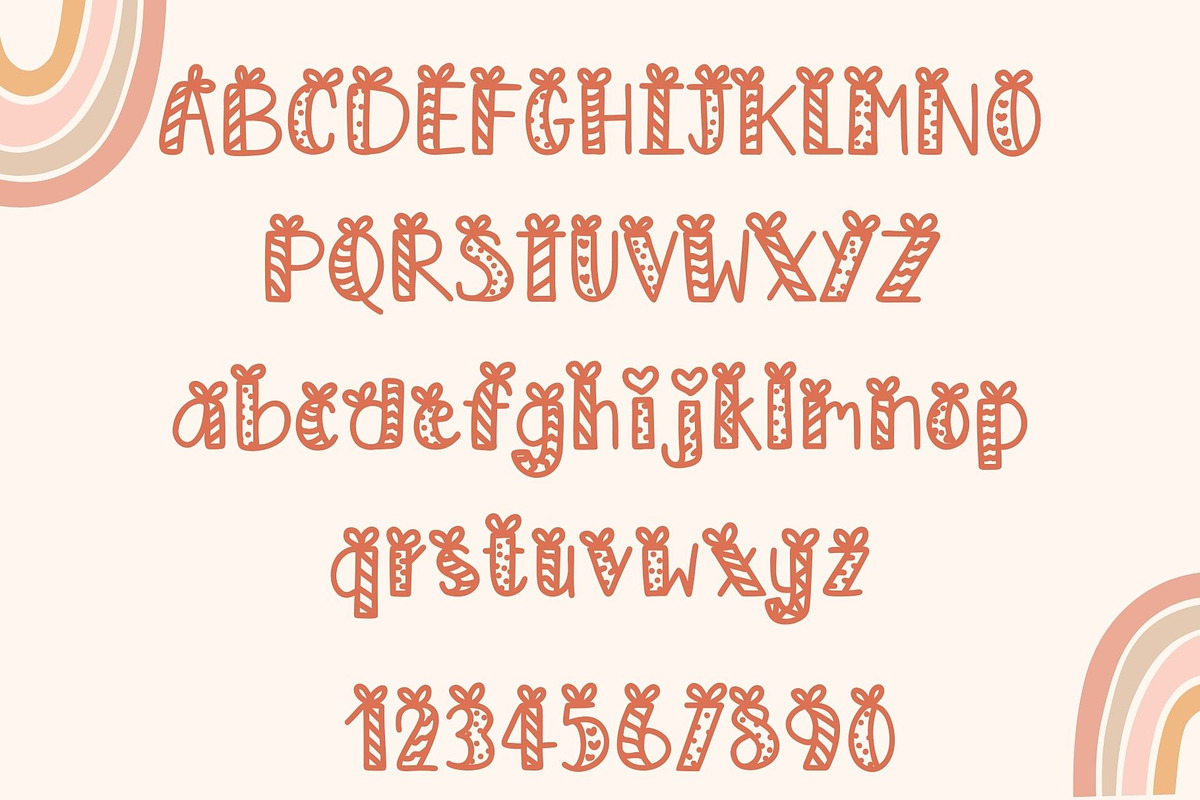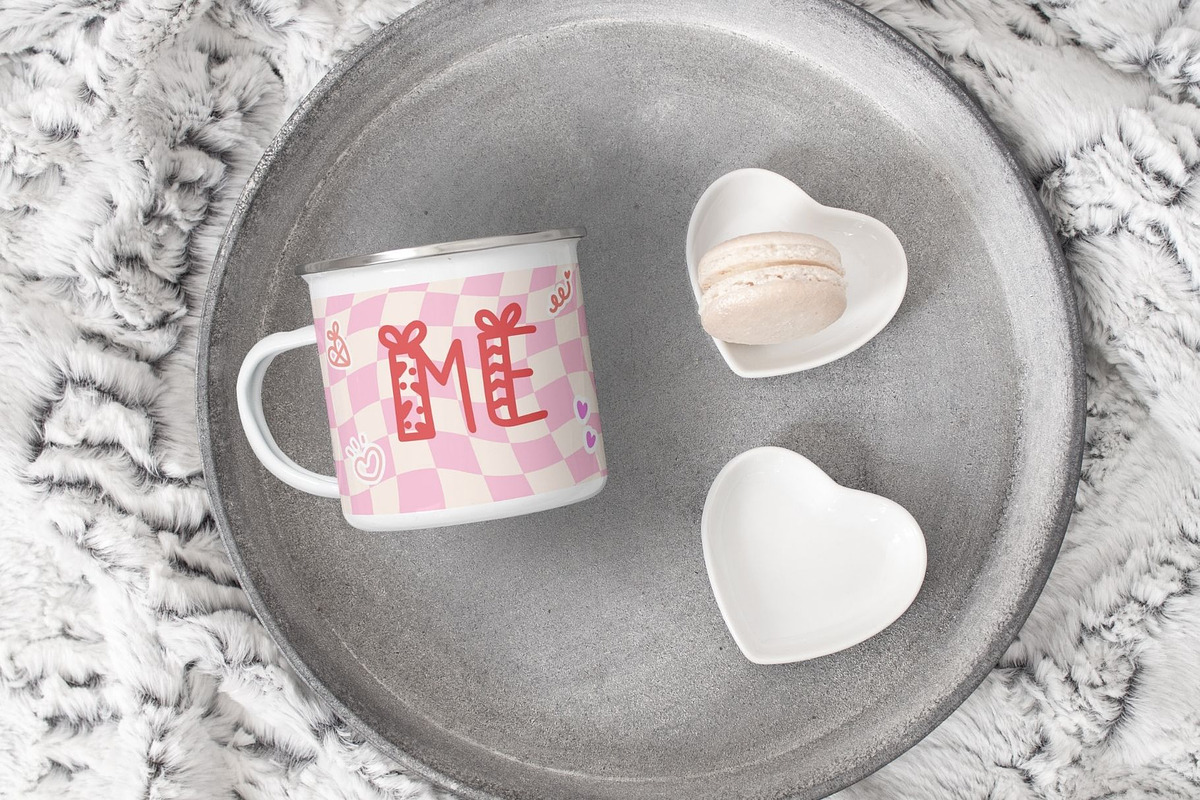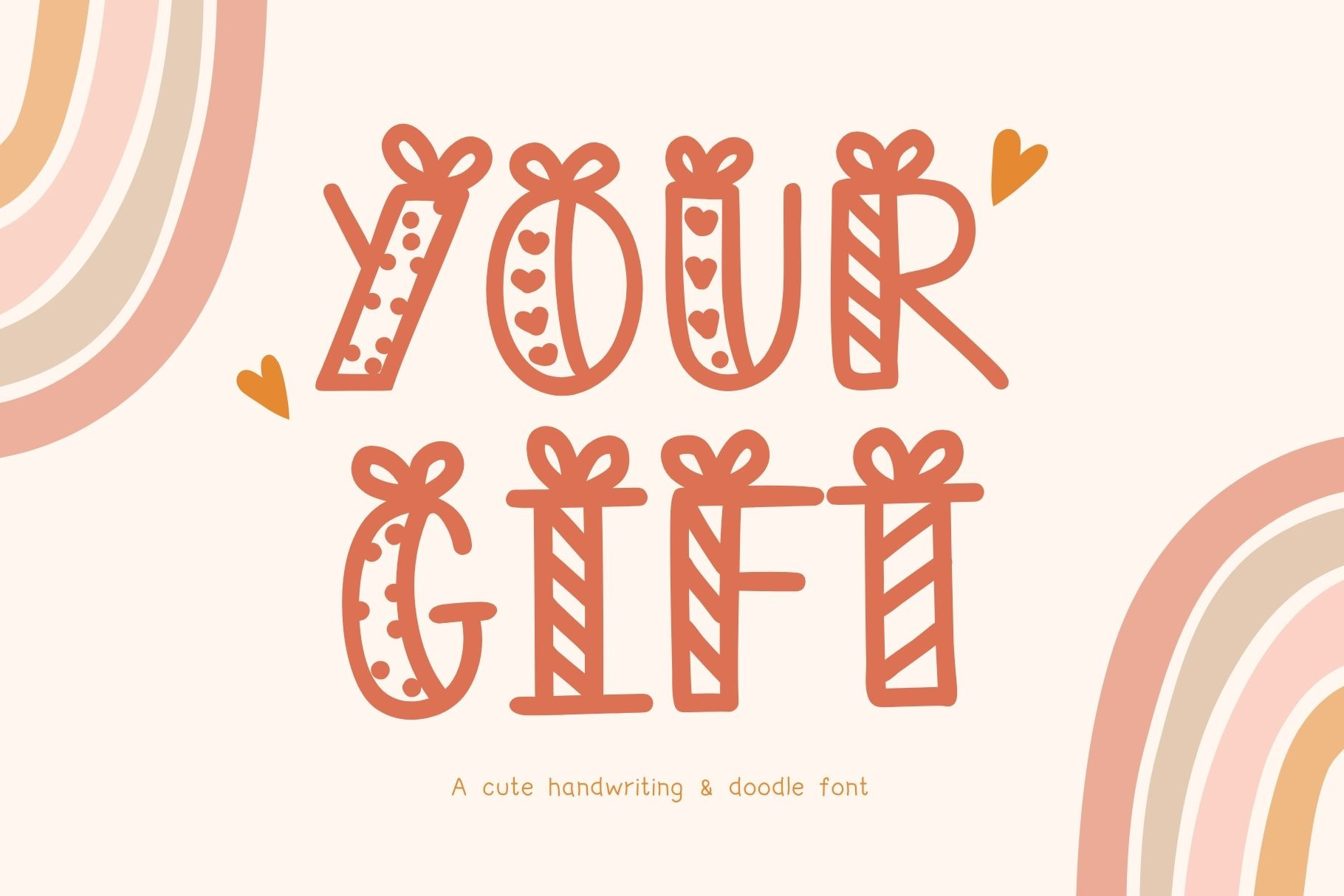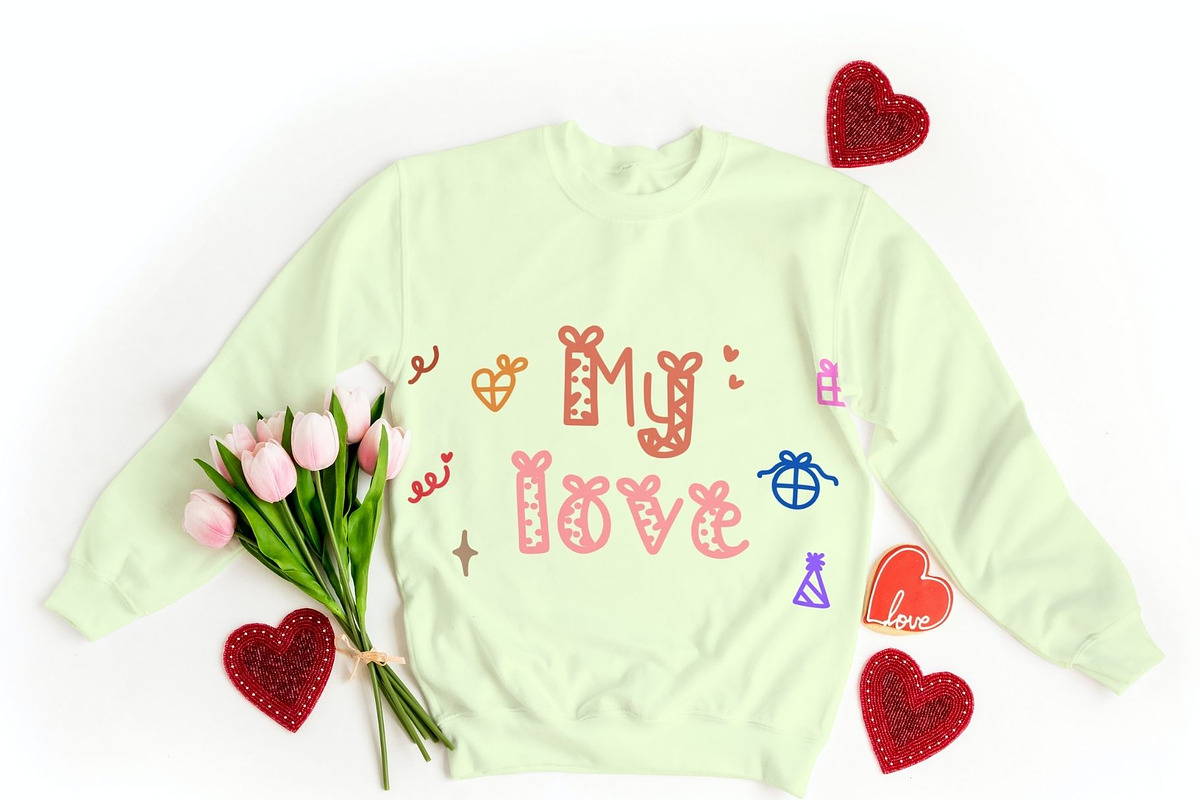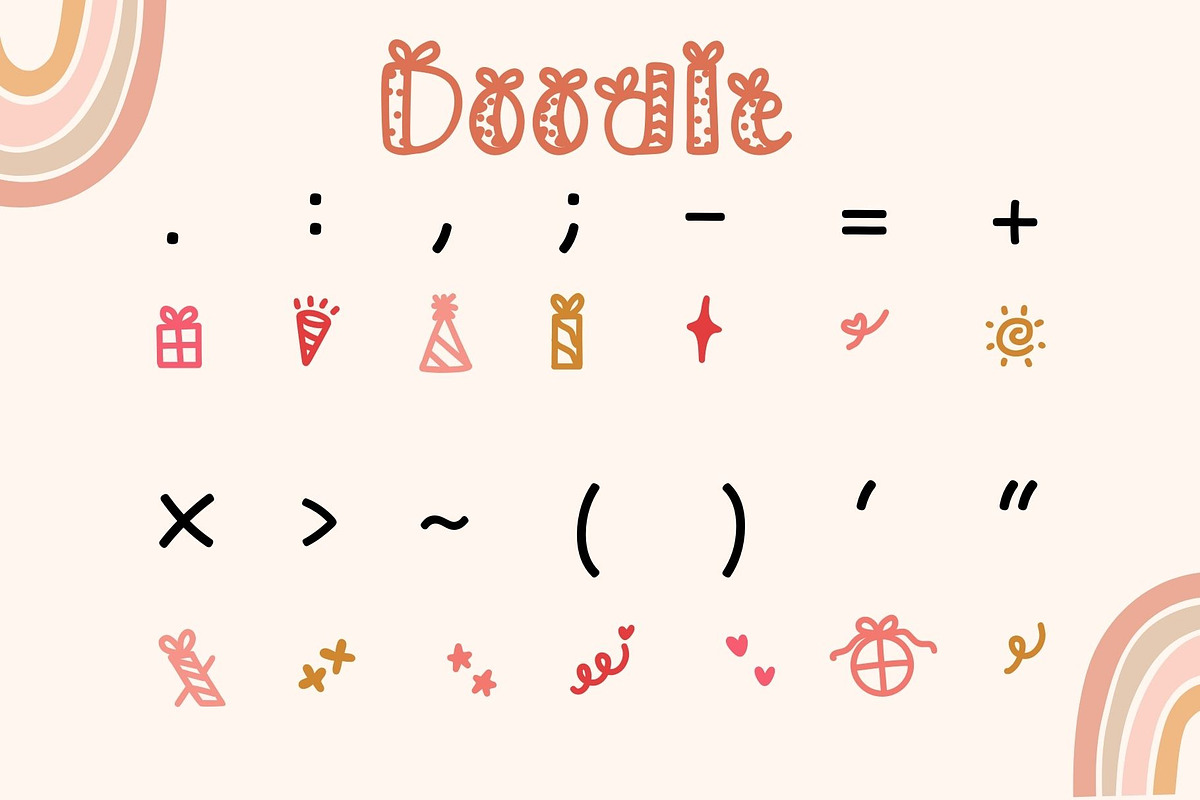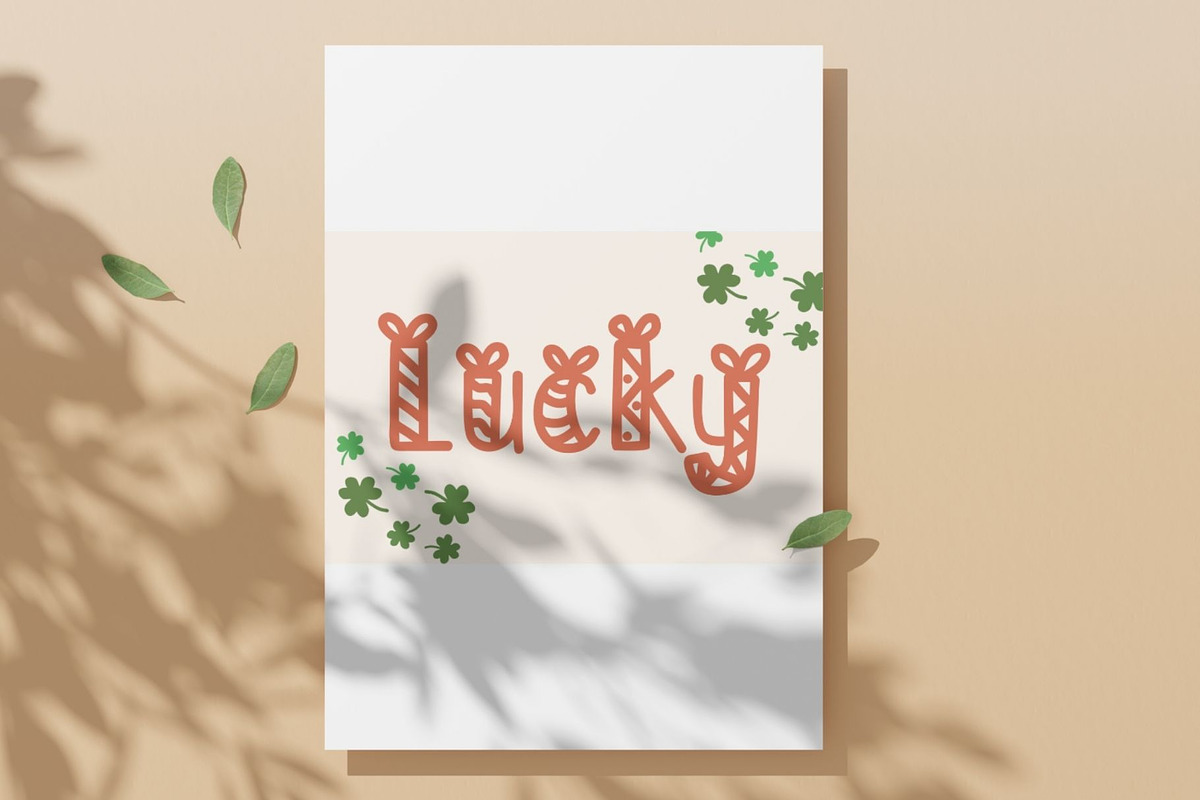
Your Gift font
Your gift A cute handwriting & Doodle font that comes with a gift theme, evoking a special and intriguing feeling. The tiny details in the letters add a sense of fun to your design work. It will make your work look more stylish and exciting. You can use it for a wide range of product designs, whether it's clothing, greeting cards, and more. Enjoy the design process!
WHAT'S INCLUDED This font contains standard characters, lowercase, uppercase, numbers, doodle punctuation and international characters.